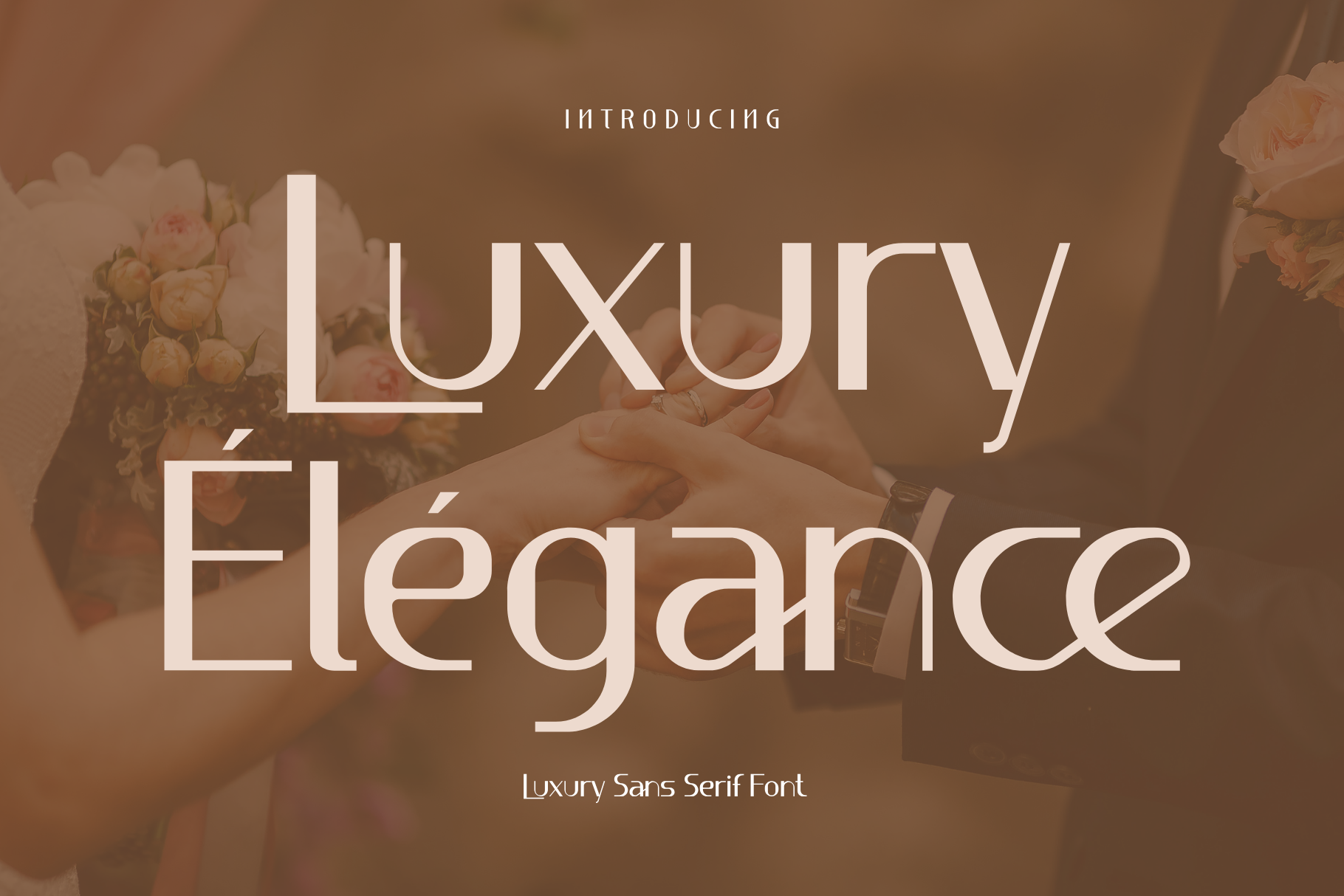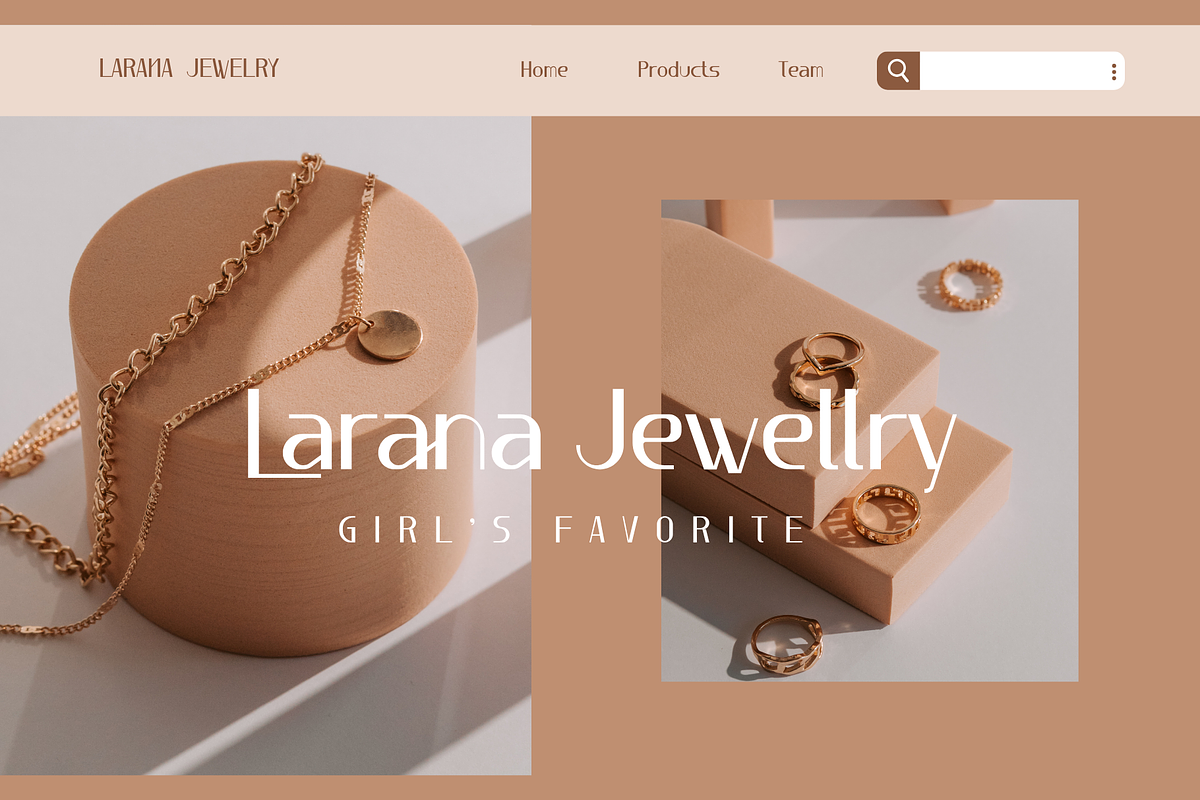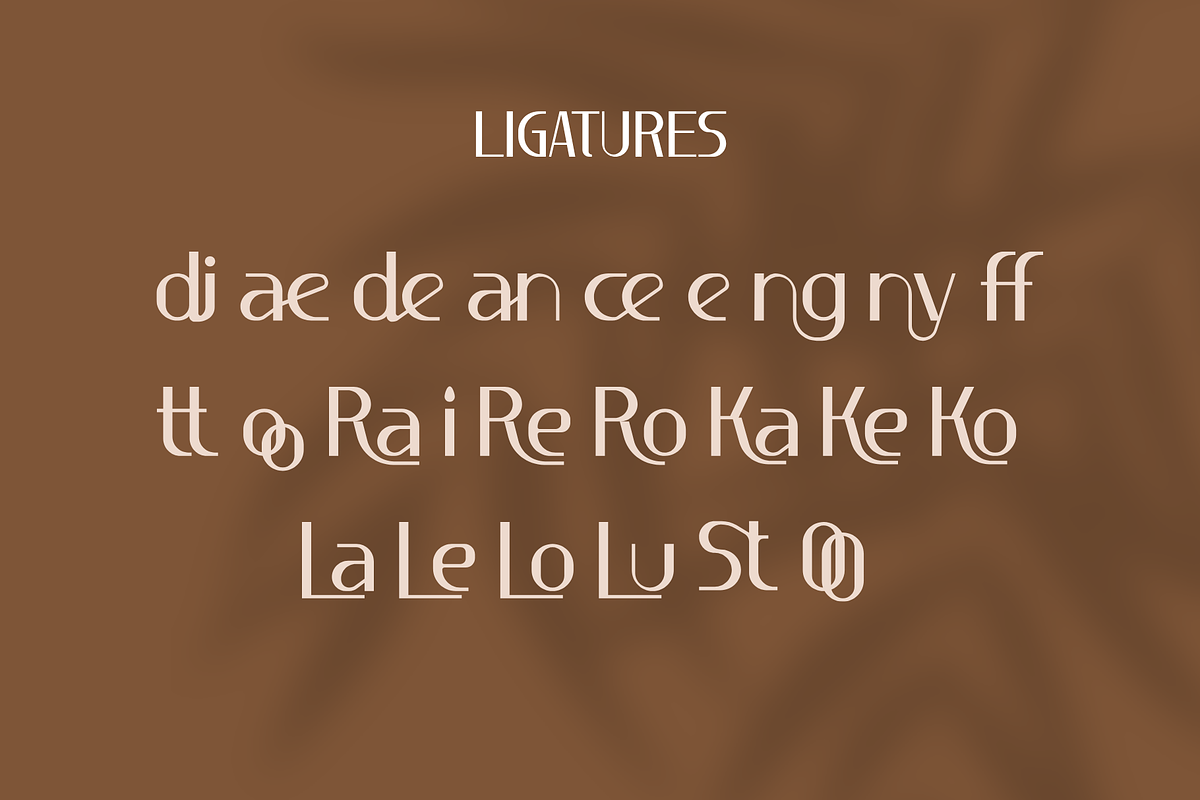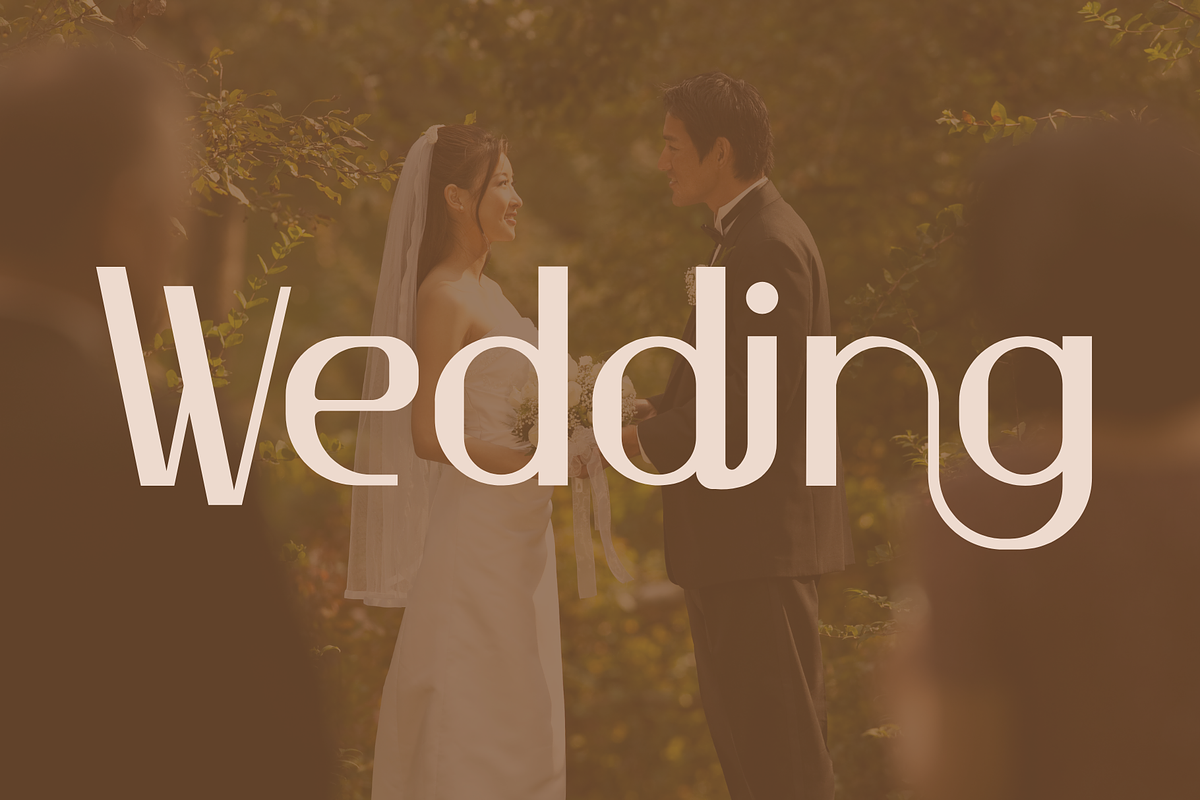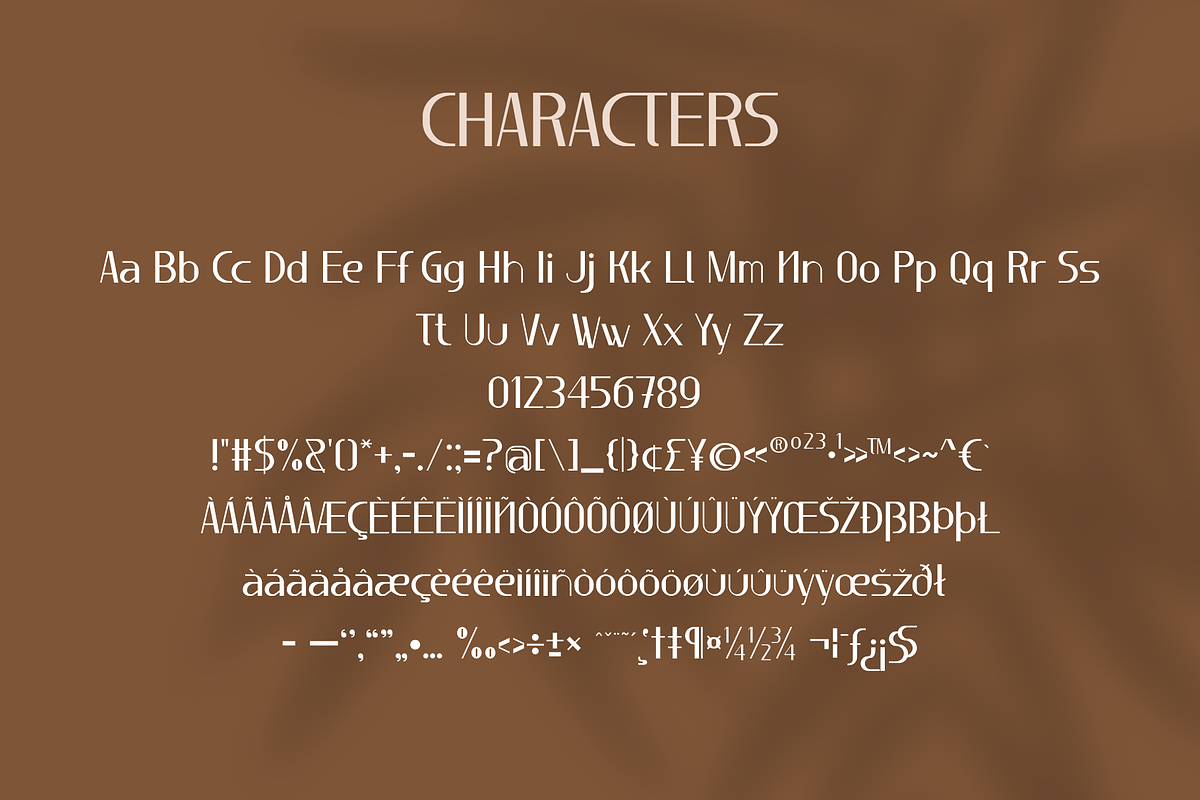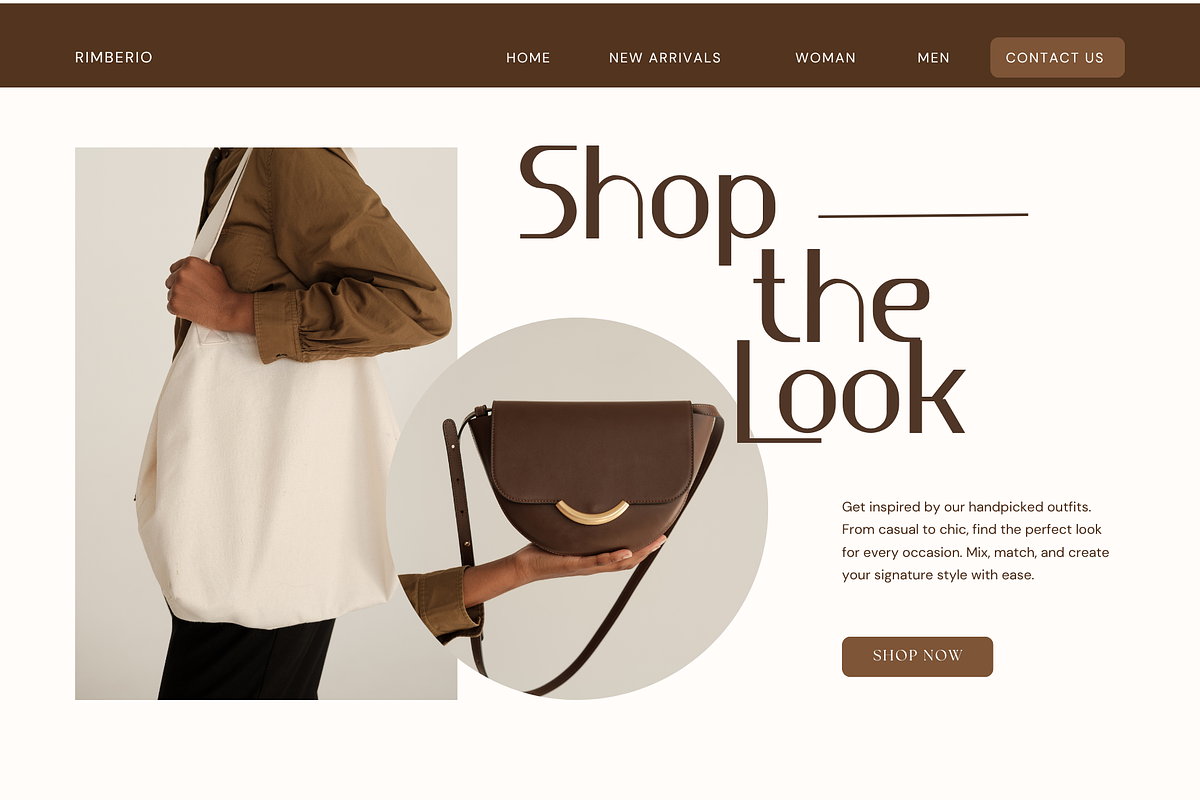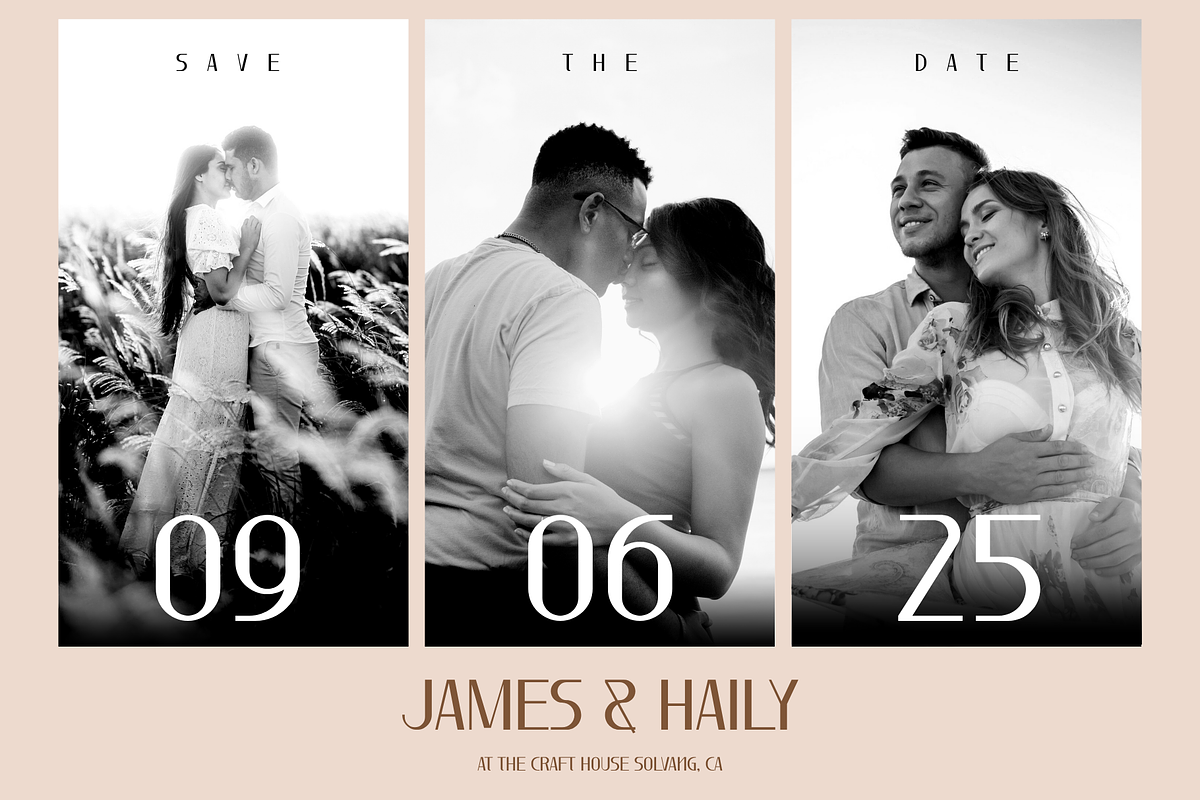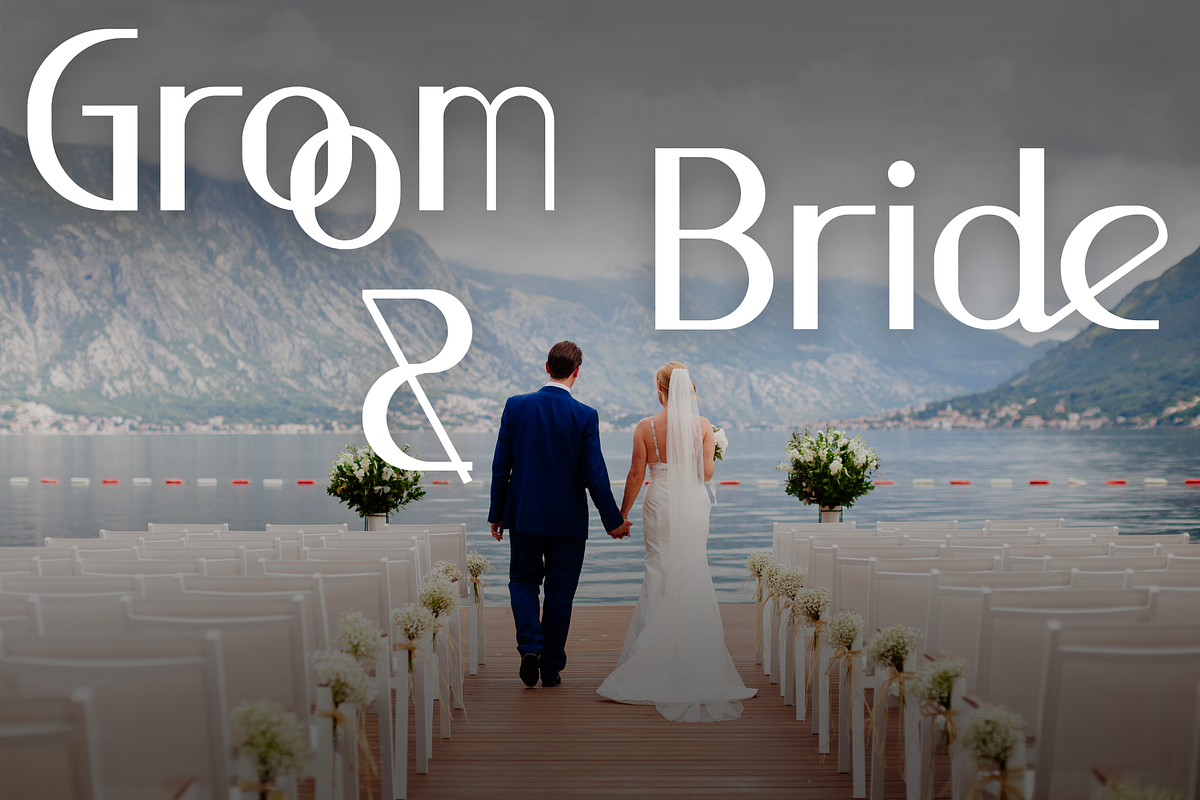
Luxury Élégance - Sans Serif Font
Luxury Élégance is a Luxury Sans Serif Font. It embodies playfulness and authenticity and is the perfect choice for all your favorite projects, including blog posts, logos, branding, ads, invitations, greeting cards, planners, photo albums, decorations, and more. Add it to any of your designs, and enjoy the results!